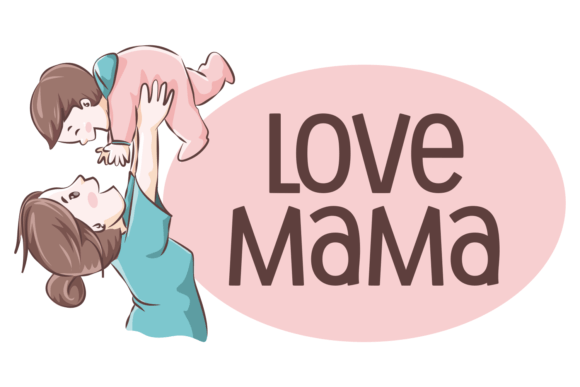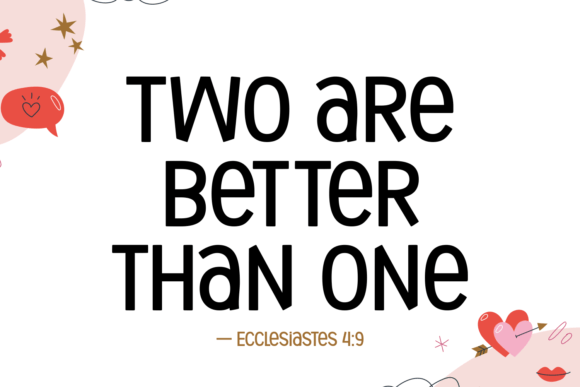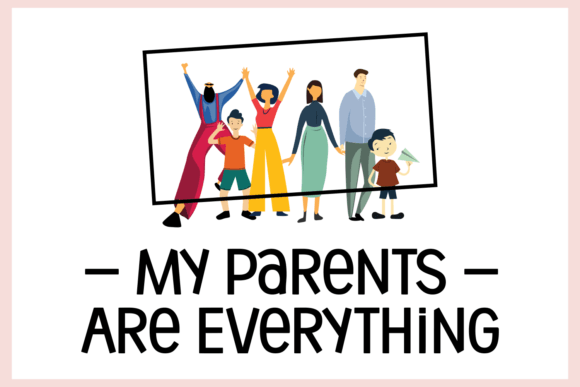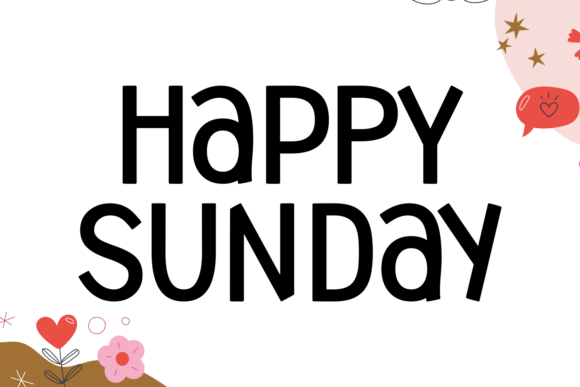
Introduction to Loving Touch Font
Do you remember that moment when you stumbled upon the perfect font for a creative project? For many designers, it’s a feeling of excitement and relief that comes with discovering the perfect design resource. For us, it’s the Loving Touch Font that has captured our hearts.
This delightful handwritten display font exudes friendliness and effortless charm, making it a valuable addition to any designer’s toolkit. With its carefully crafted letterforms, Loving Touch Font is perfect for adding a touch of personality and intimacy to your designs. Whether you’re working on invitations, quotes, or social media graphics, this high-quality font is sure to elevate your creative project. And the best part? It’s available for free download, making it a transparent background for your design needs.
Key Features of Loving Touch Font
- High-quality design resource ideal for creative projects, including invitations, greeting cards, and other personal items.
- Includes a range of stylish and elegant characters, perfect for adding a touch of sophistication to your design project.
- Designed with a focus on readability and legibility, ensuring that your text remains clear and easy to understand.
Honest Review: Loving Touch Font
I recently stumbled upon the Loving Touch Font while searching for a high-quality design resource for a creative project. After giving it a try, I’m excited to share my honest thoughts on this font.
- Cute and playful design: The Loving Touch Font is perfect for projects that require a touch of warmth and personality.
- High-quality glyphs: The font is well-designed and includes a wide range of glyphs, making it suitable for various creative projects.
- Transparent background: The font’s transparent background makes it easy to use on any background, giving designers more flexibility.
- Limited font sizes: The font may not be ideal for large-scale typography, as it can become less readable.
- Not suitable for formal projects: The Loving Touch Font’s playful design may not be suitable for formal or professional projects.
Overall, I’m impressed with the Loving Touch Font, and I’d recommend it for creative projects that require a touch of whimsy. It’s a free download, making it an excellent resource for designers on a budget.
Loving Touch Font
The Loving Touch Font is a high-quality design resource ideal for any creative project. It offers a unique and elegant style that can add a touch of sophistication to your work.
Tips for Getting the Most Out of Loving Touch Font
Use the Loving Touch Font with a transparent background to create a sense of depth and dimension in your design. Experiment with different font sizes and styles to create visual interest. You can also pair it with other fonts to create a unique and eye-catching combination.
The Loving Touch Font is ideal for wedding invitations, birthday cards, and other special occasion designs. It’s also great for creating elegant and sophisticated branding materials, such as business cards and brochures.